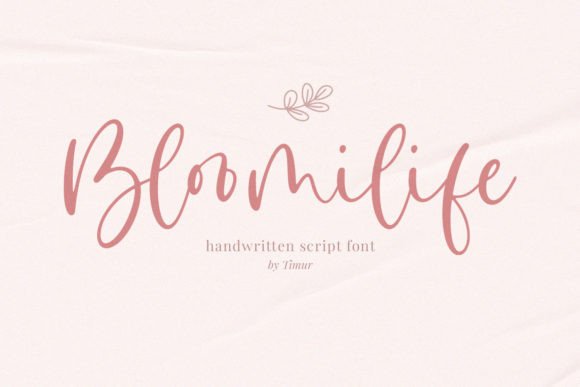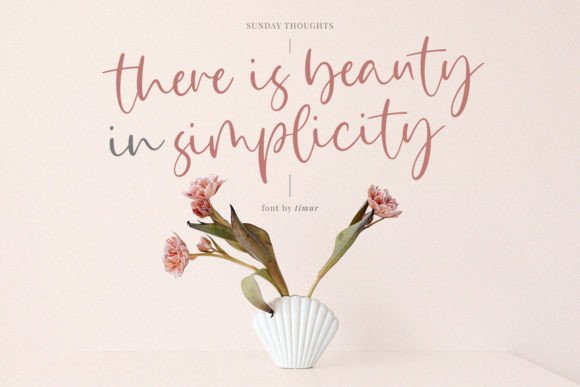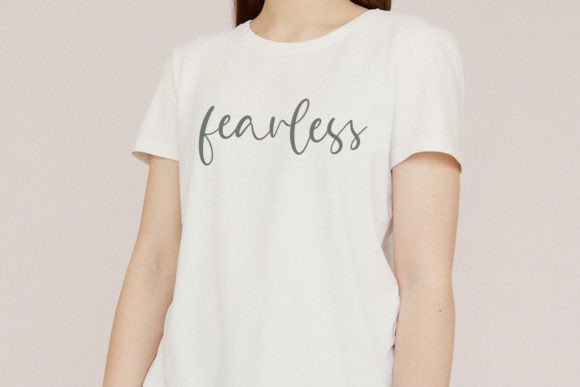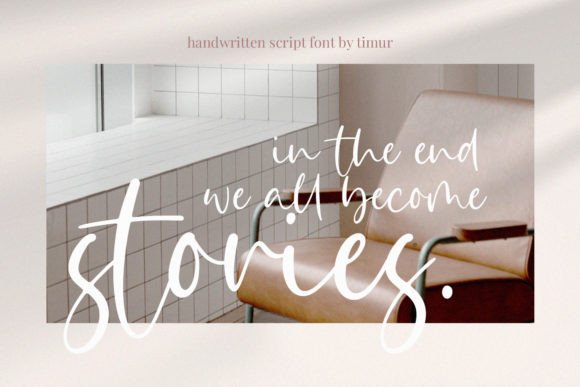
About Bloomilife Font
Bloomilife is a dazzling script font. This font is neatly crafted and highly detailed. Whatever the topic, this font will be a wonderful asset to your font library, as it has the potential to enhance any creation.